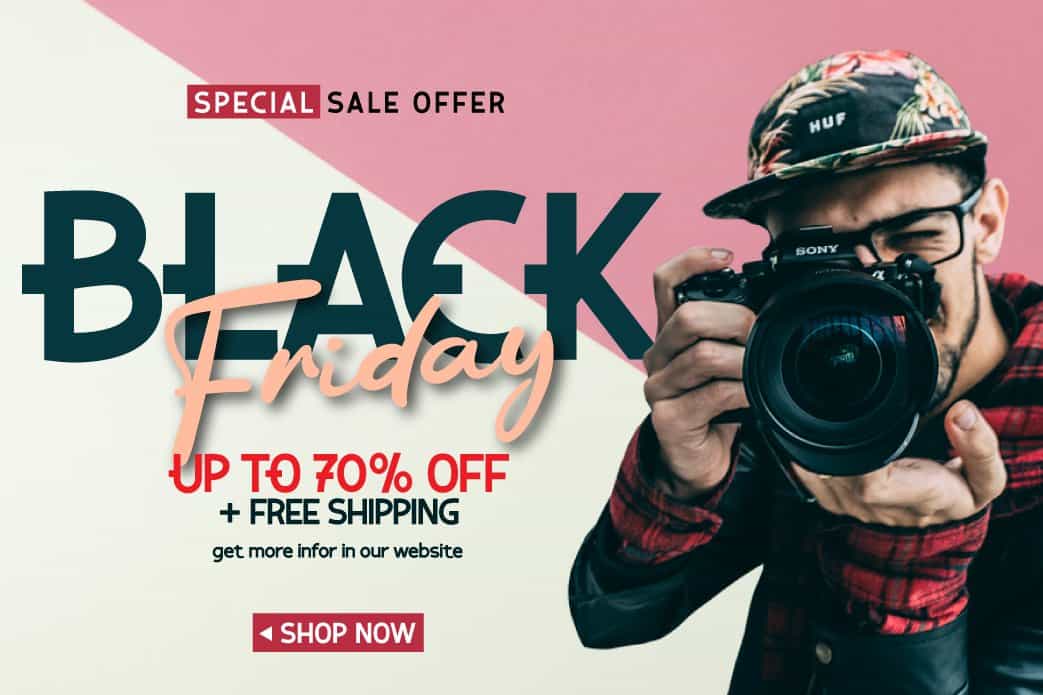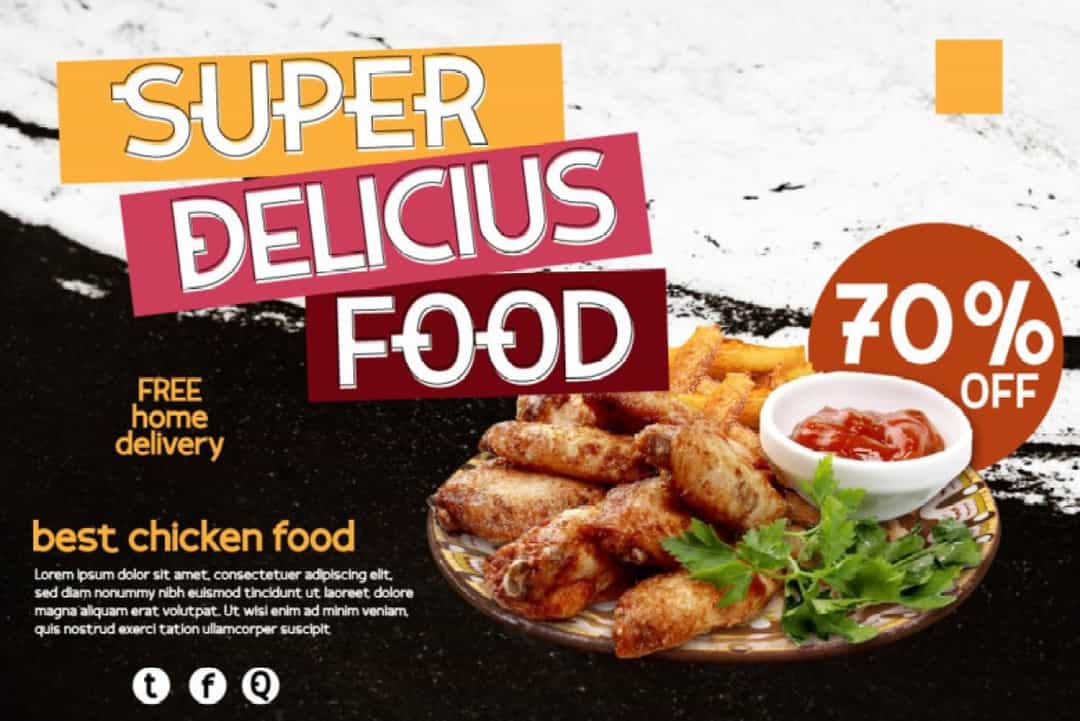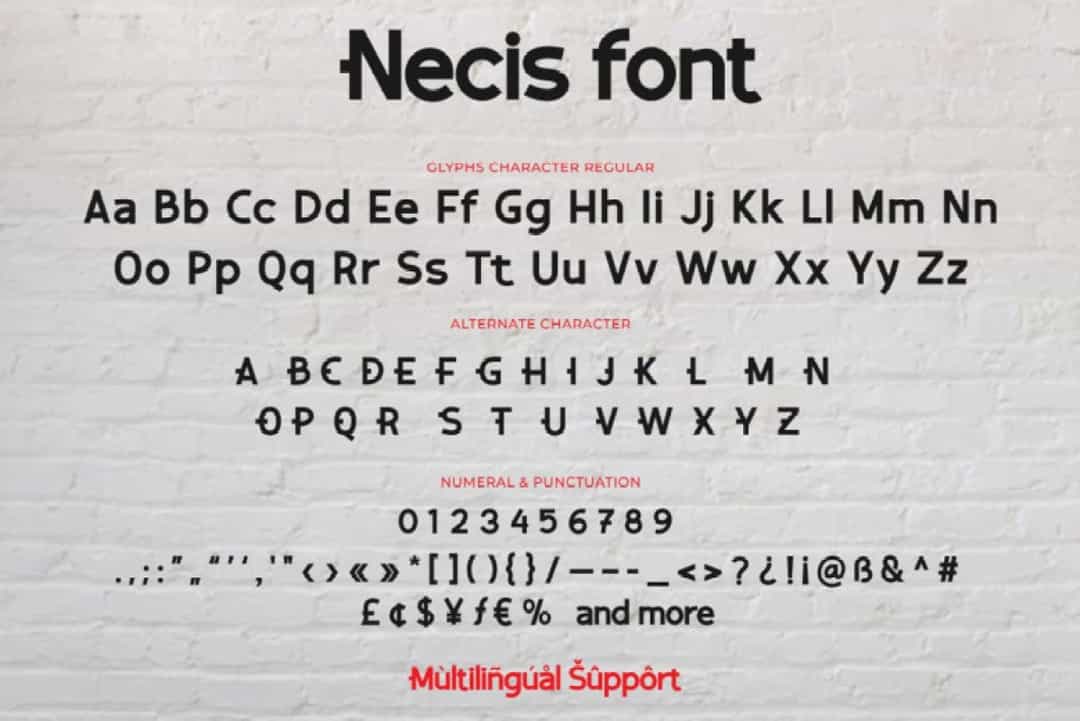
Necis is features beautifully smooth curves and geometric sans serif font with an unusual flair, it’s clean modern look is enhanced with a fun twist. Capital letters for promoting your name or your company name. Here are several styles that appear stylish at all times and as such can be used when style is of utmost importance.